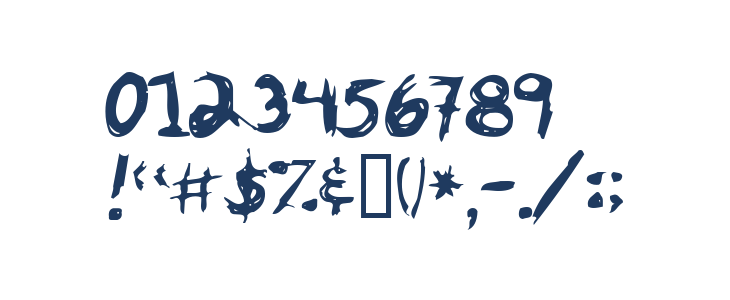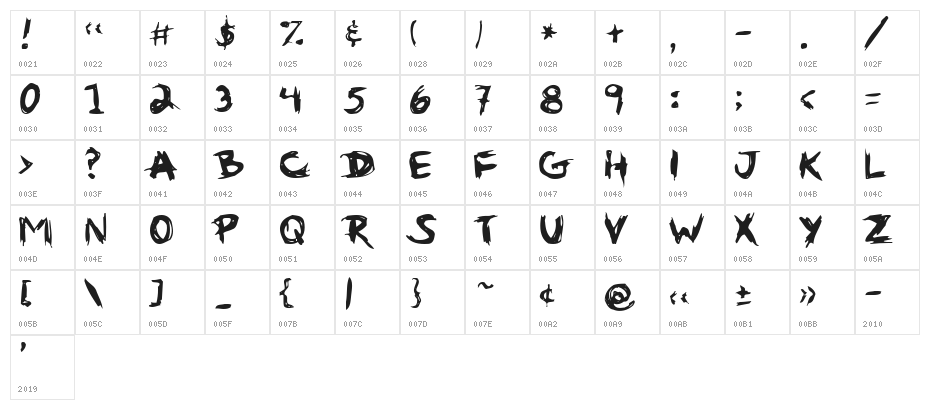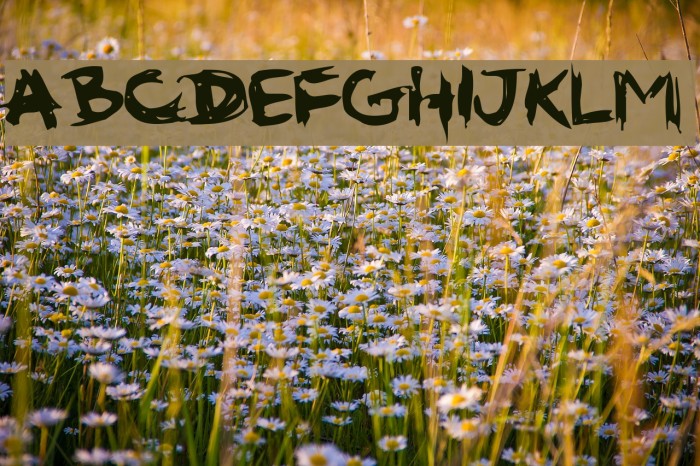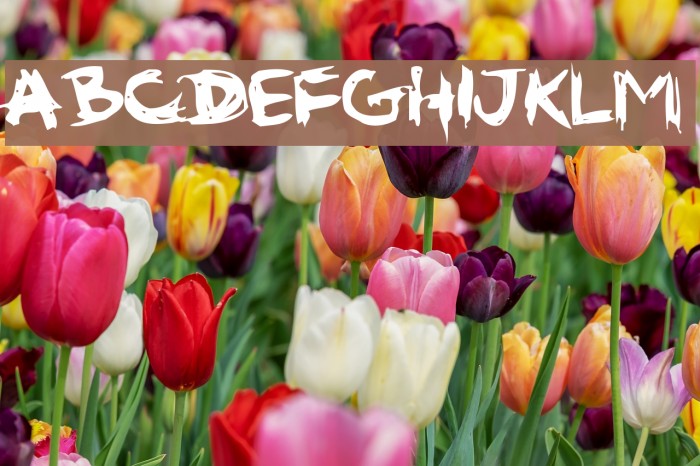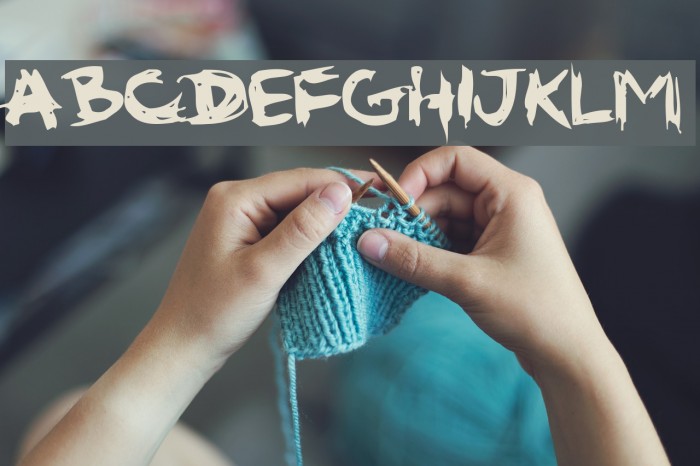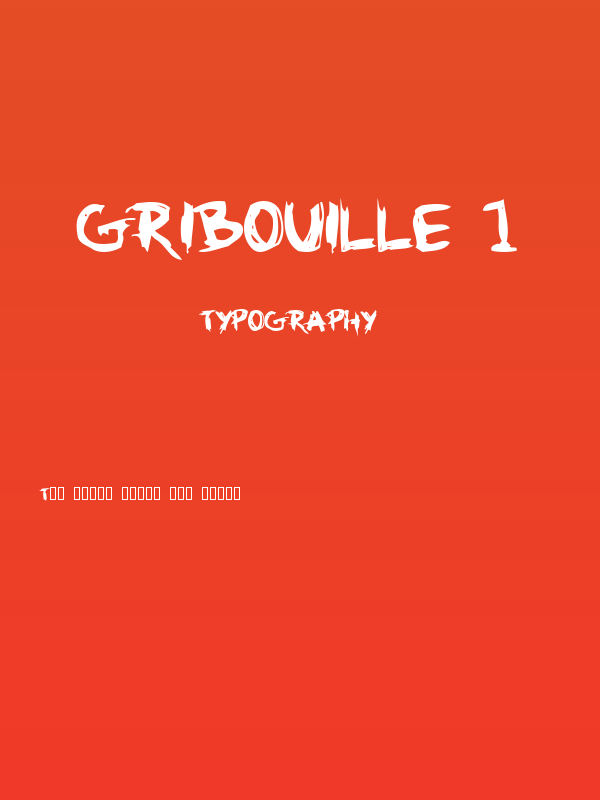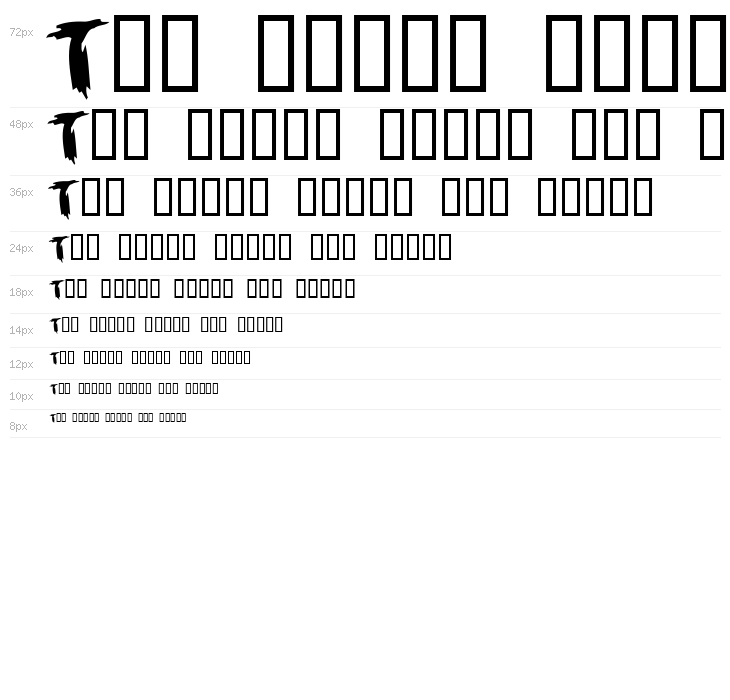
gribouille 1 Font
gribouille 1 Description
This font features a bold and dynamic style with sharp, jagged edges that give it an energetic and rebellious feel. The uppercase letters are particularly striking, with exaggerated strokes and a sense of movement that suggests action or excitement. The numerals and special characters maintain this bold aesthetic, making them stand out prominently. This font's unique design is reminiscent of graffiti or street art, with an edgy and modern twist. Its distinctive appearance makes it ideal for projects that require a strong visual impact.
| Overall Style | Modern, Edgy |